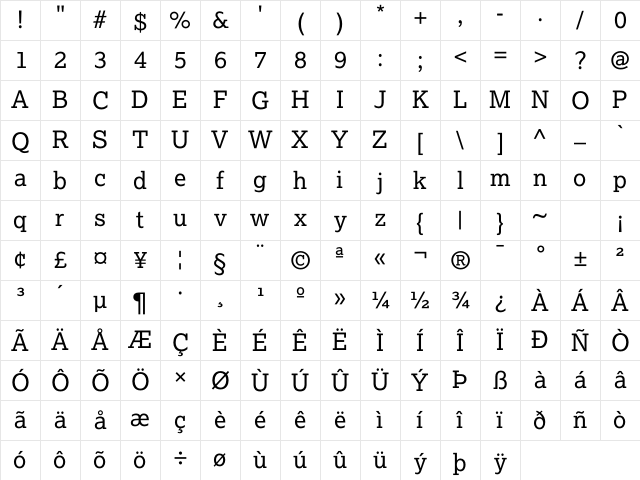
Lexia DaMa Regular
Design Context for Lexia DaMa
Lexia DaMa is a composed and adaptable typeface that performs quietly and consistently across a wide range of design contexts.
Pro Tip: Use Lexia DaMa in both headline and body roles to test its range before committing to a single application.